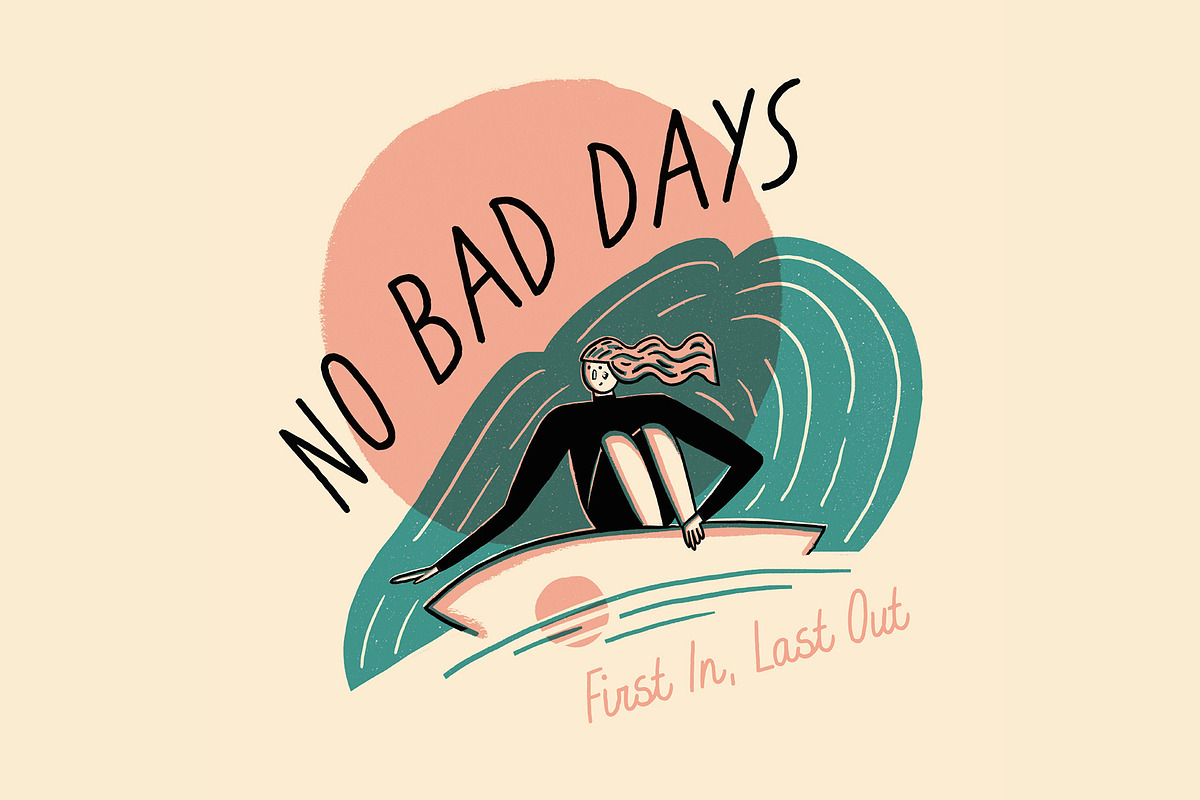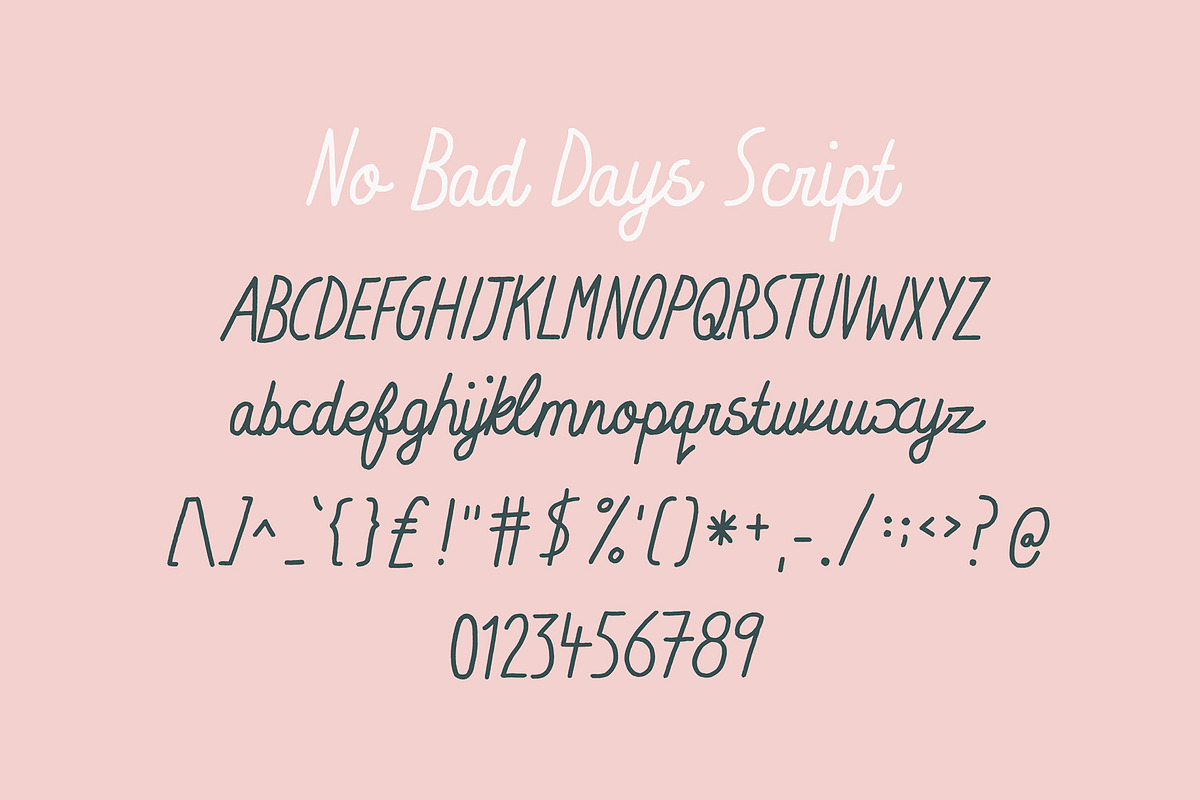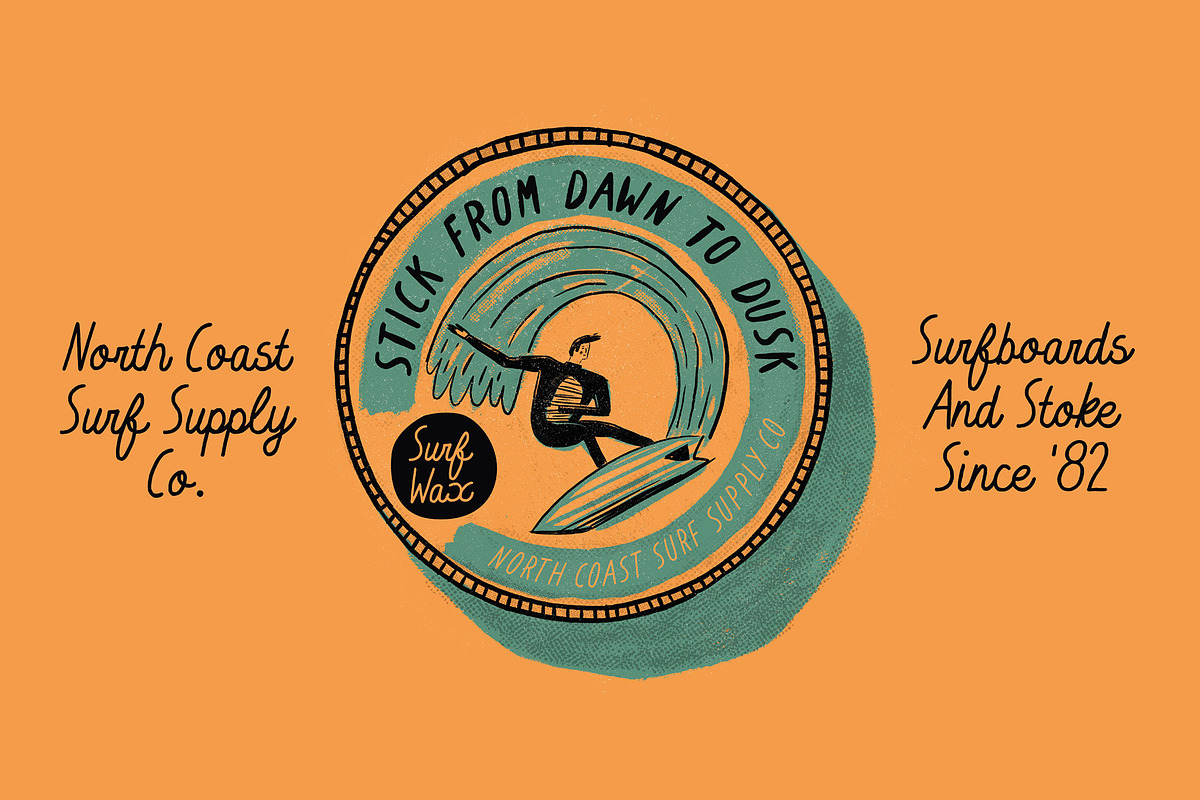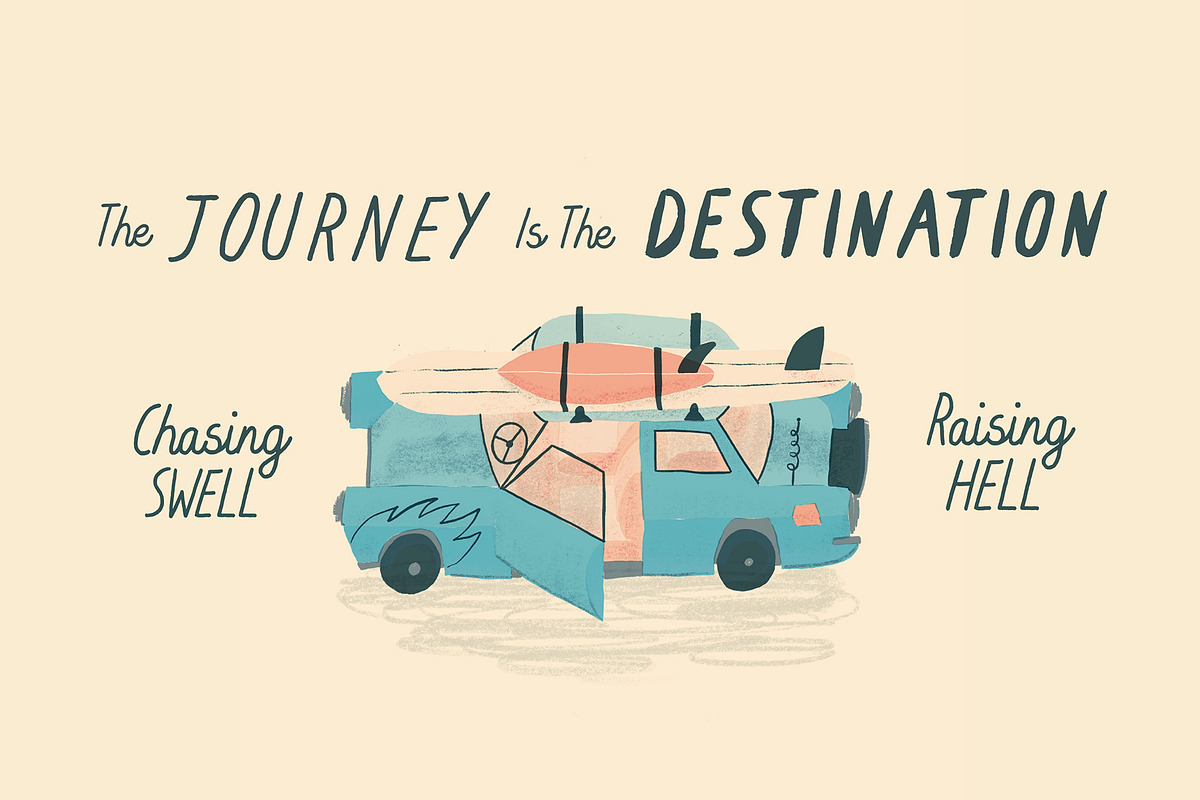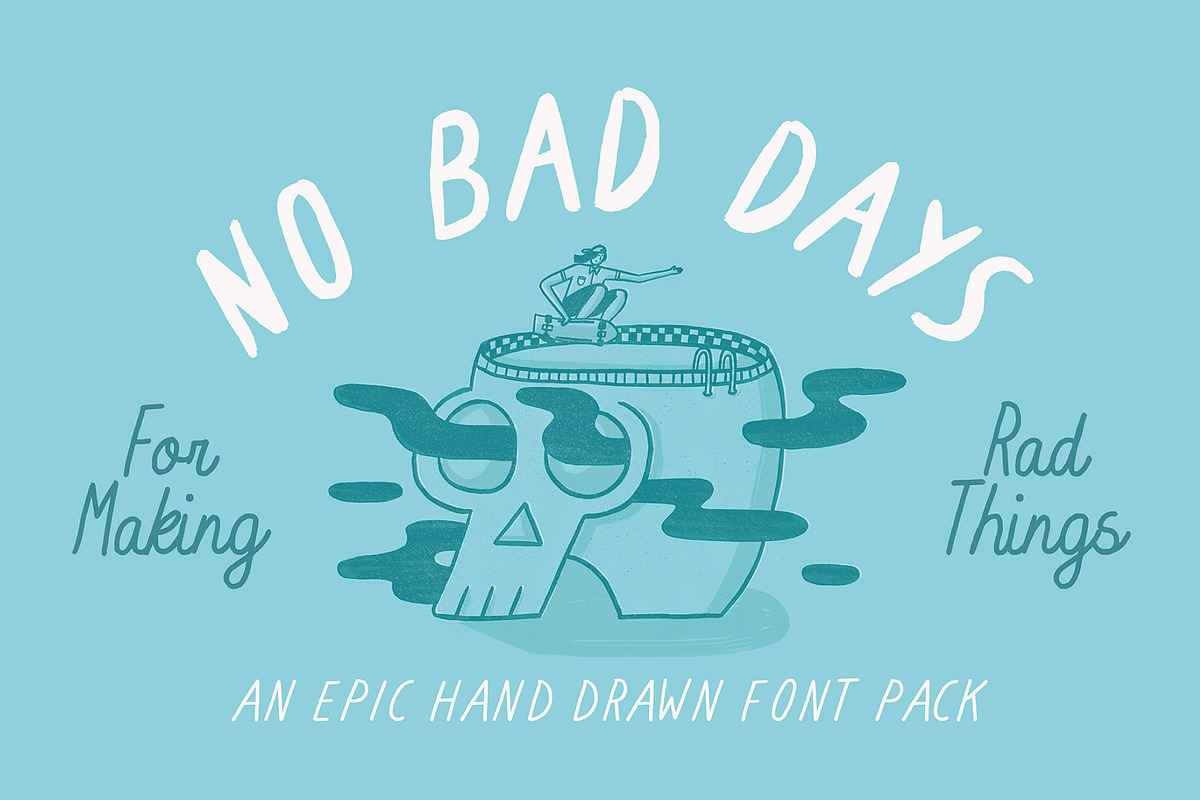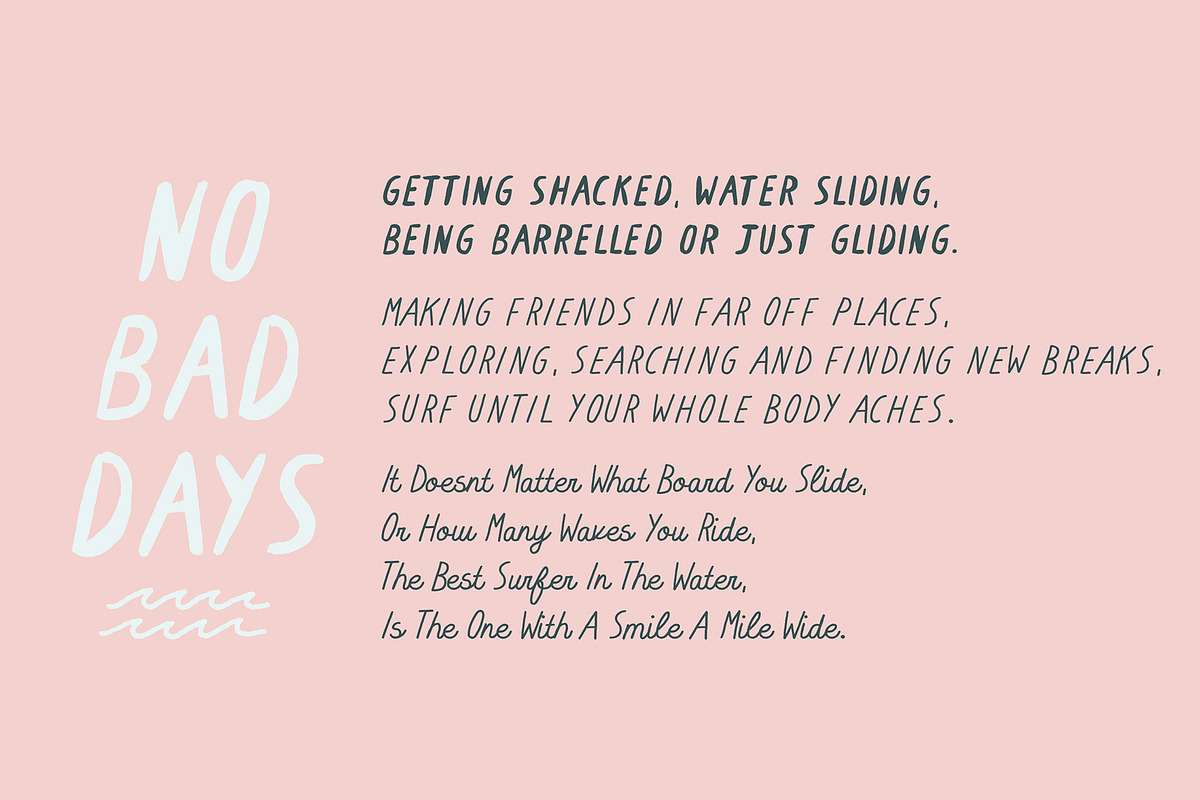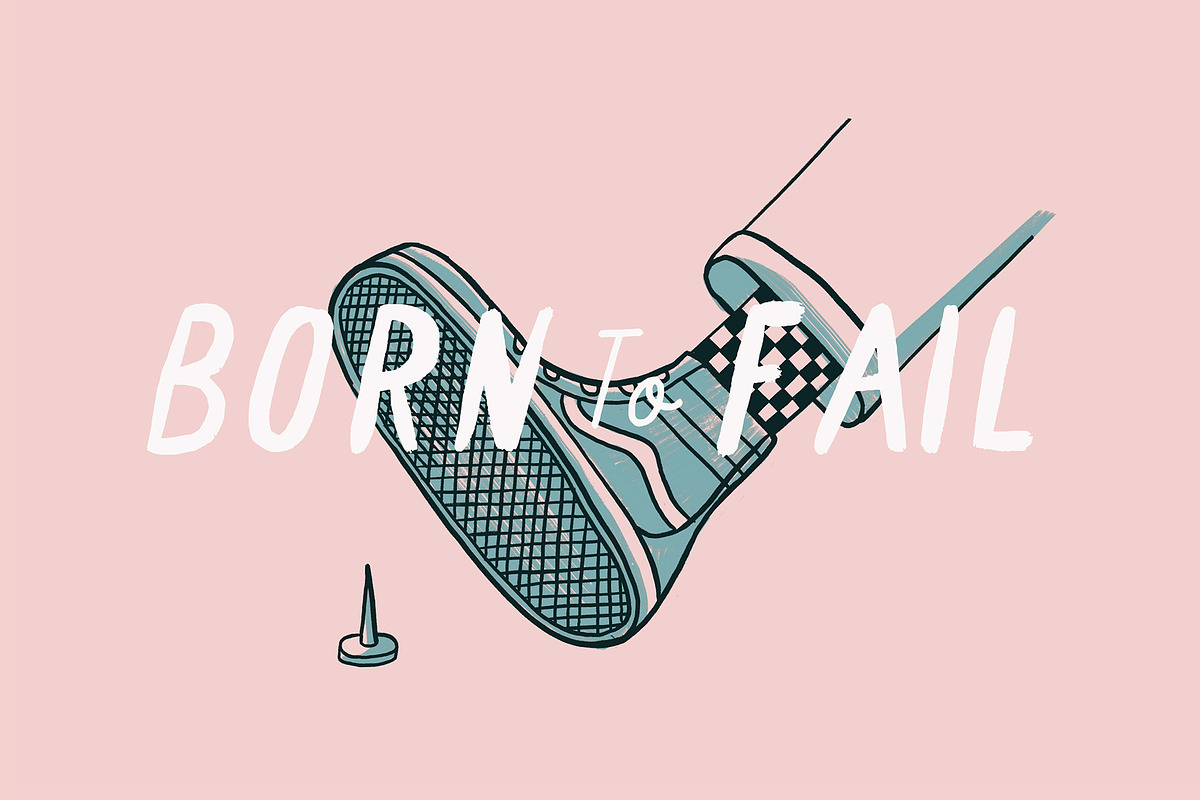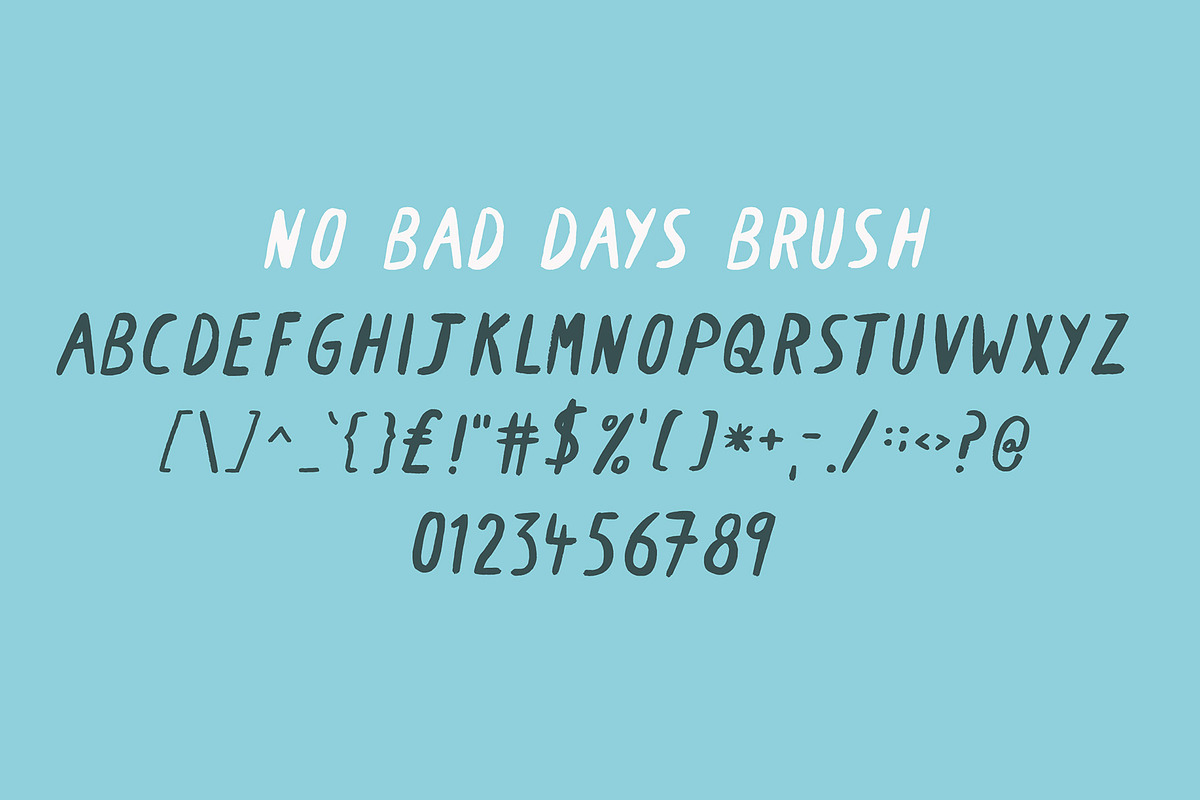
No Bad Days Font
No Bad Days is an epic hand drawn font pack.
This rad little pack will help you create an awesome hand drawn vibe to any design project.